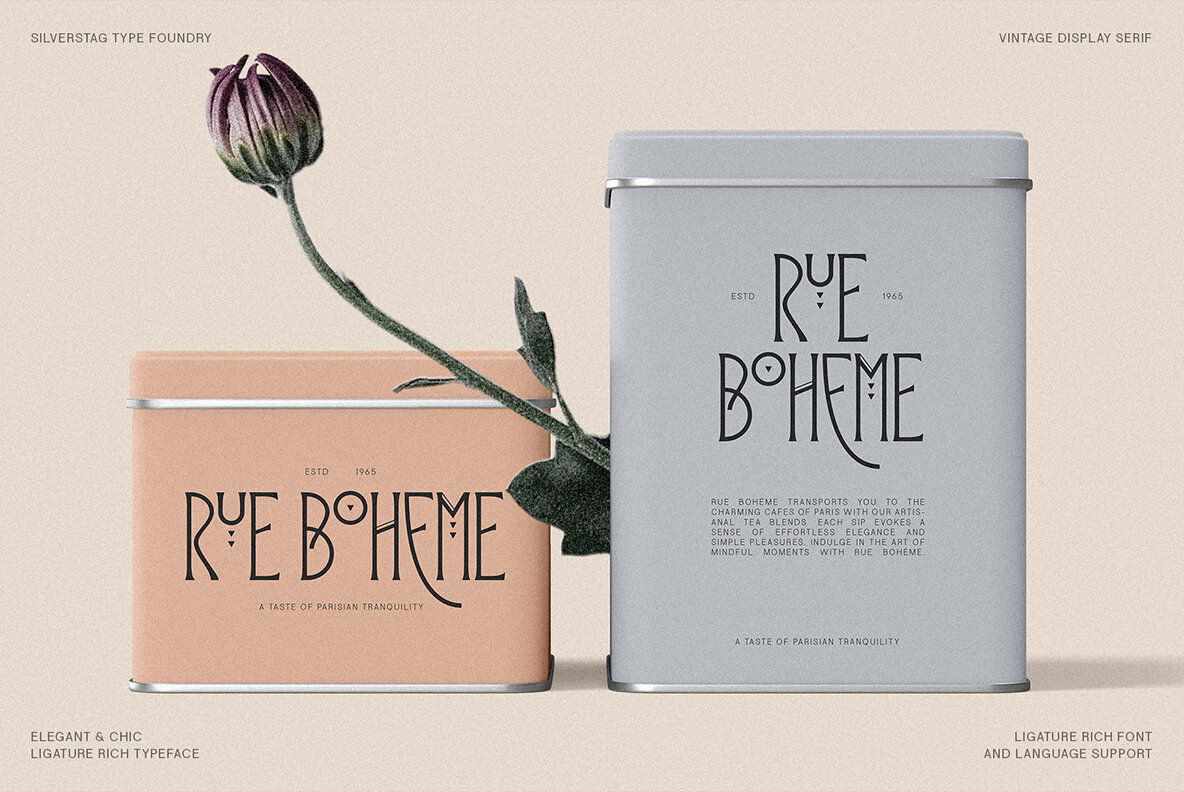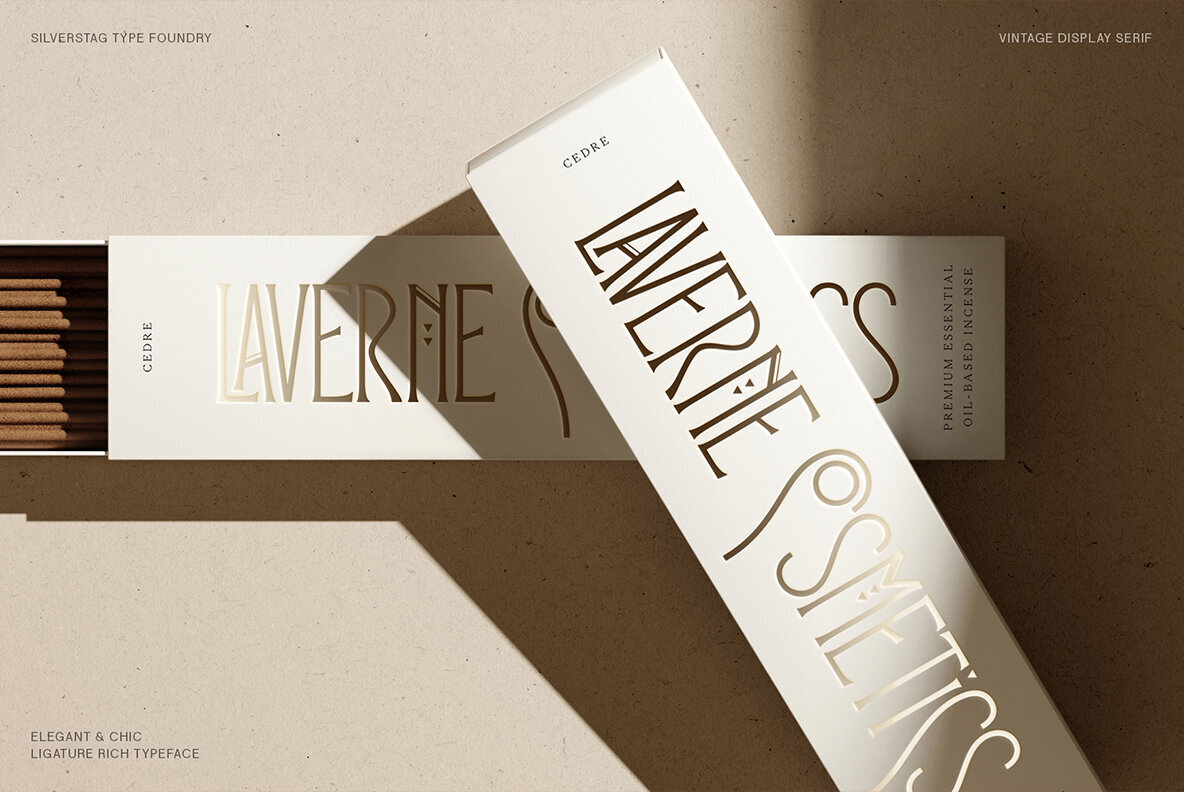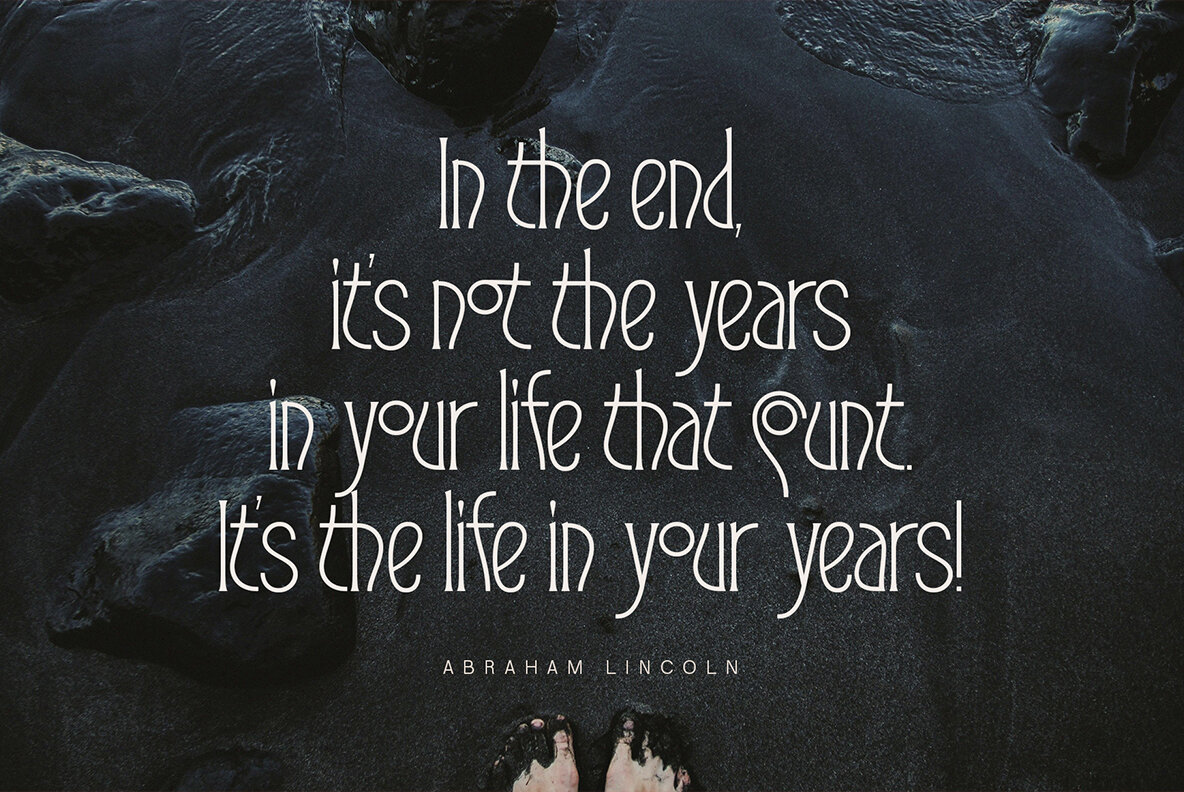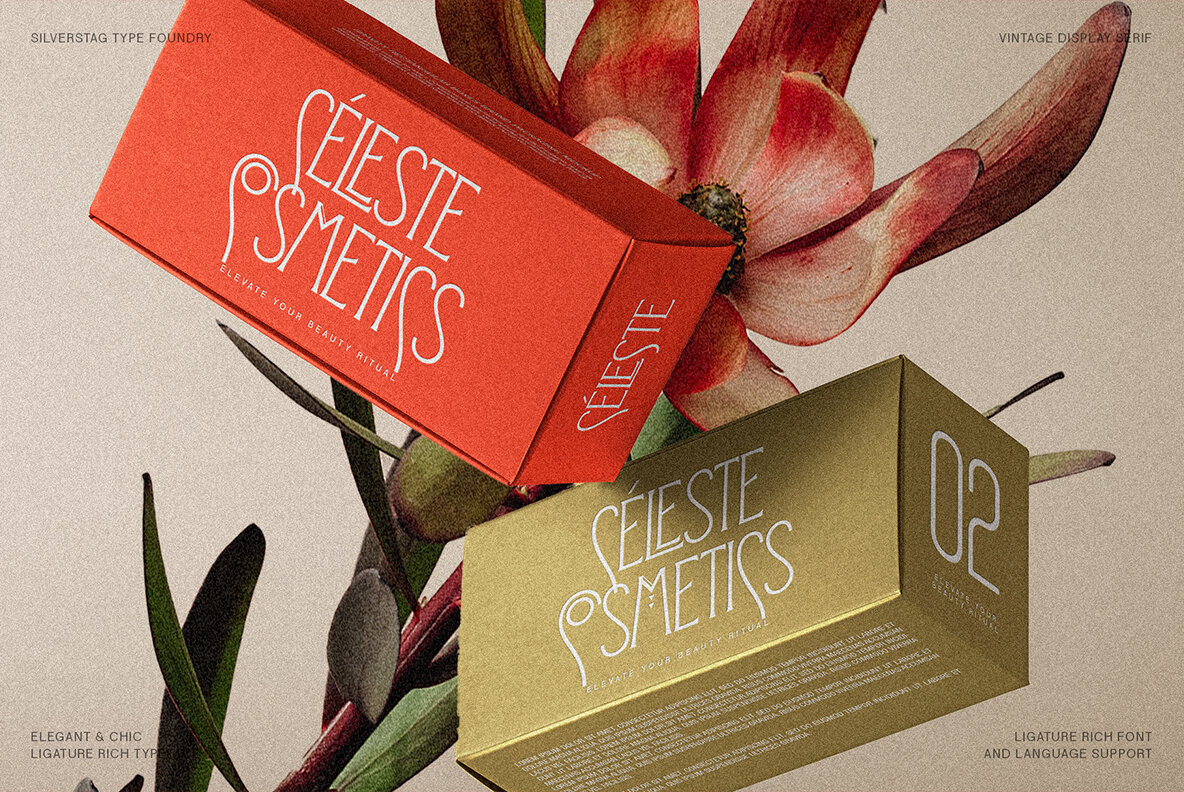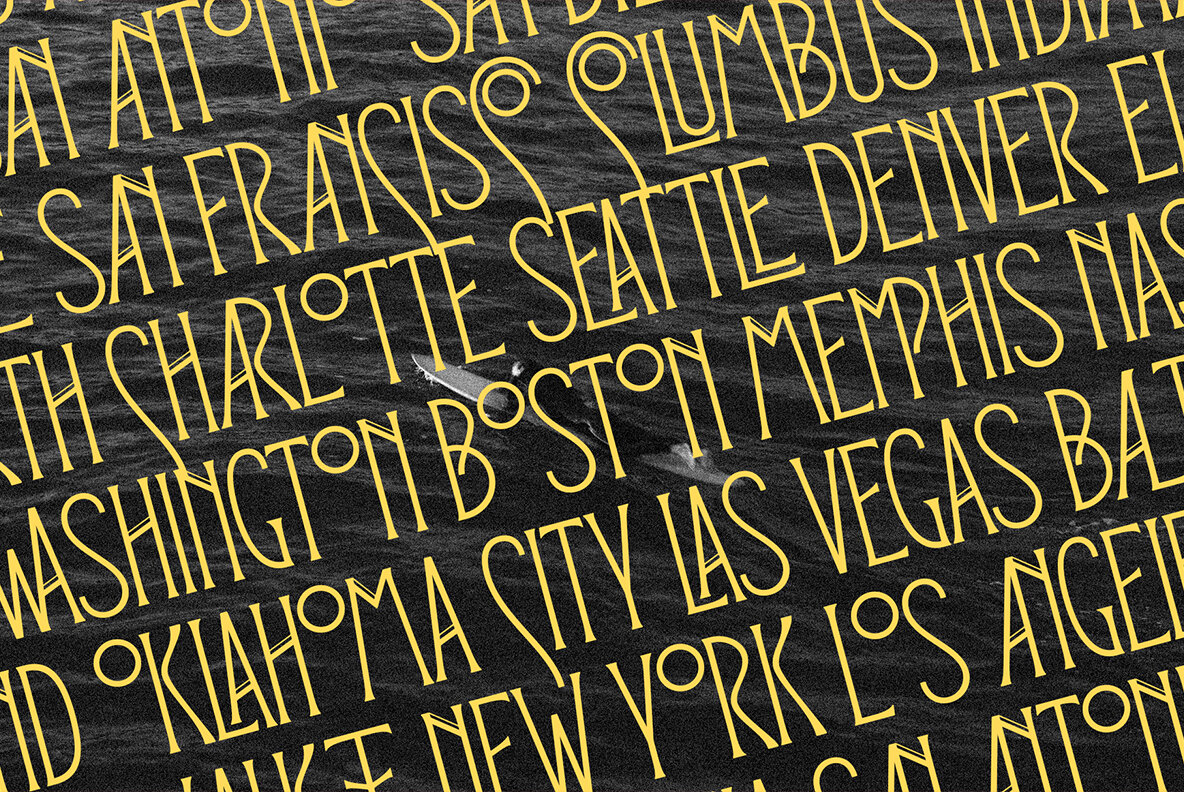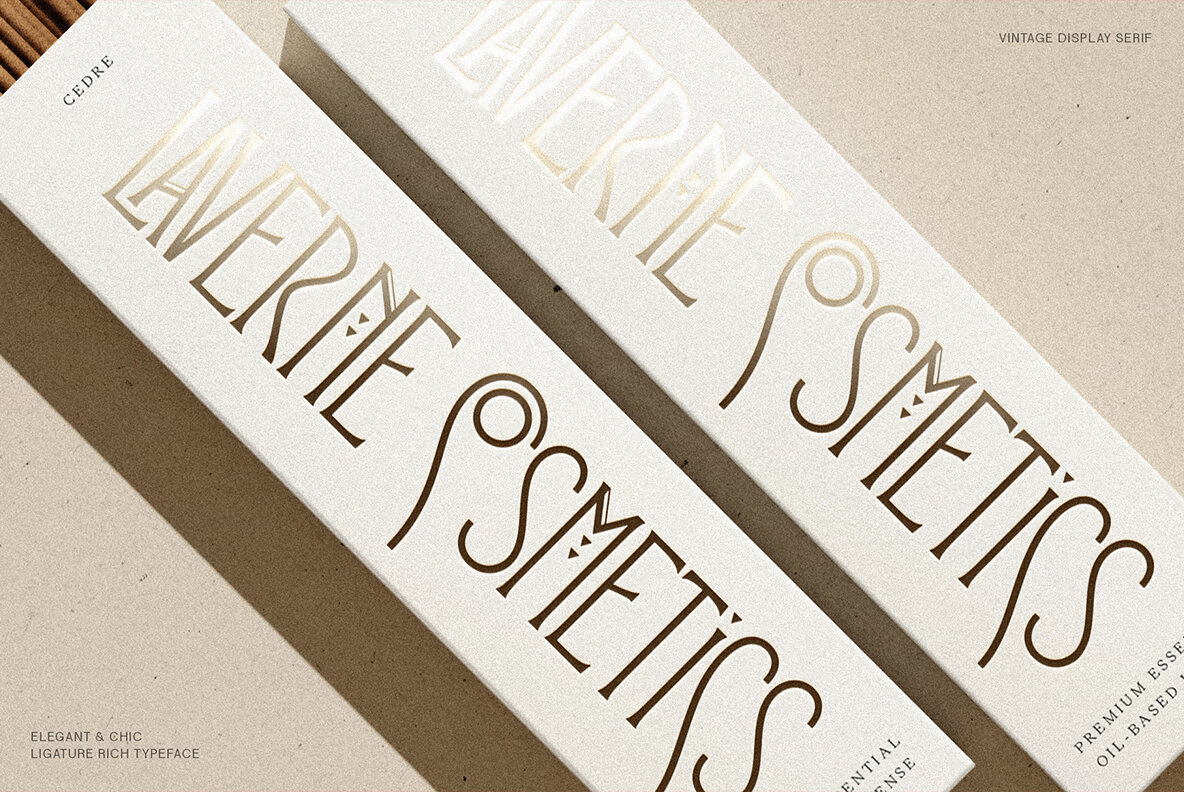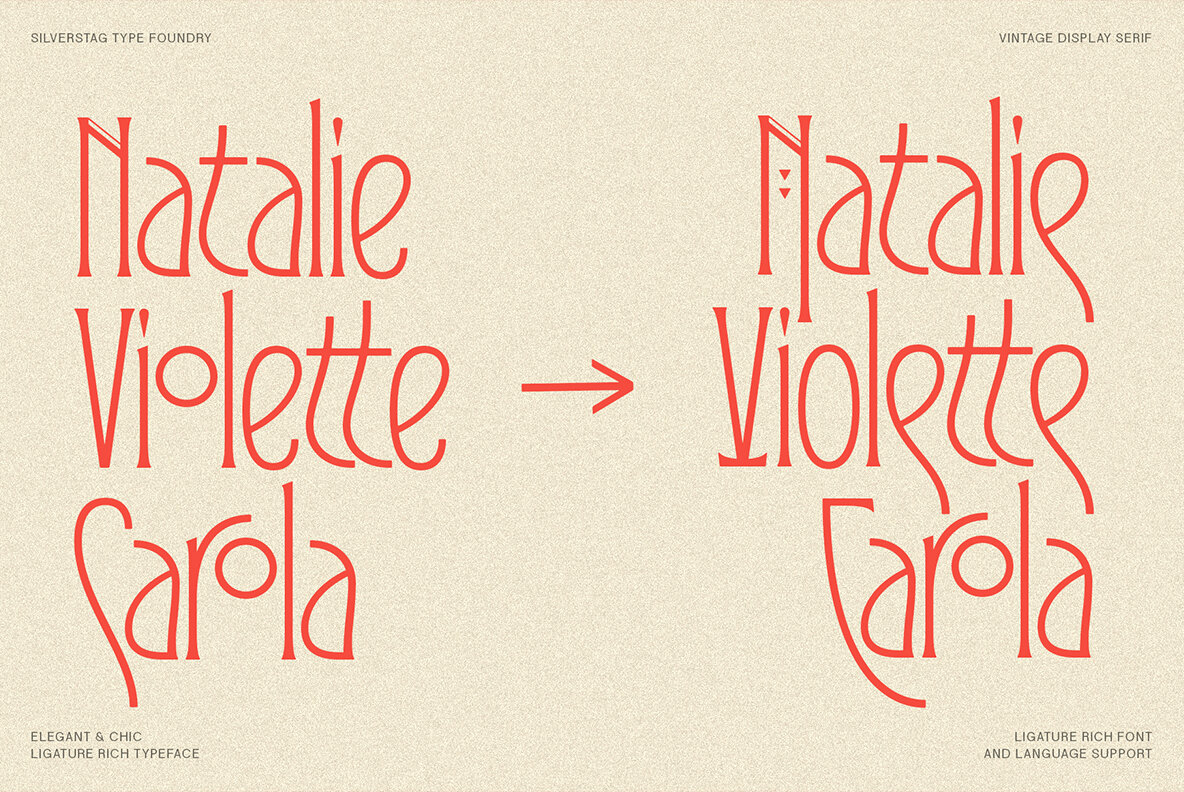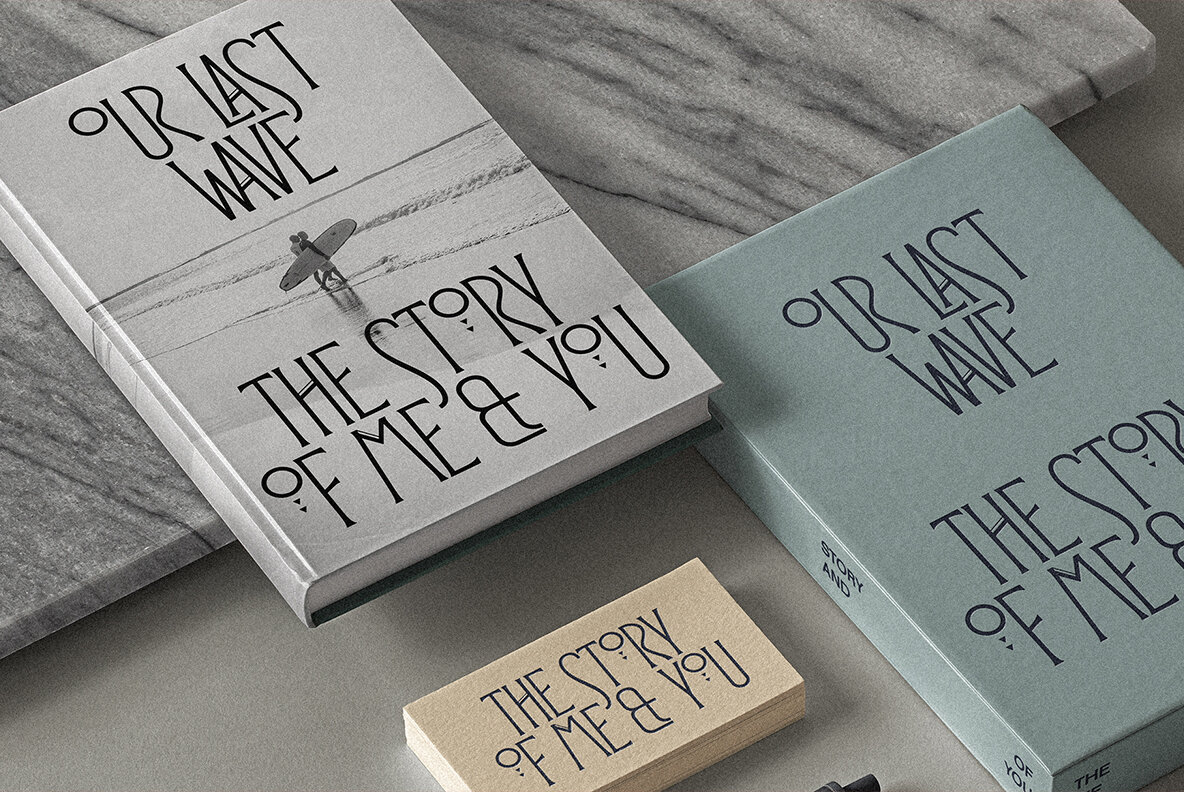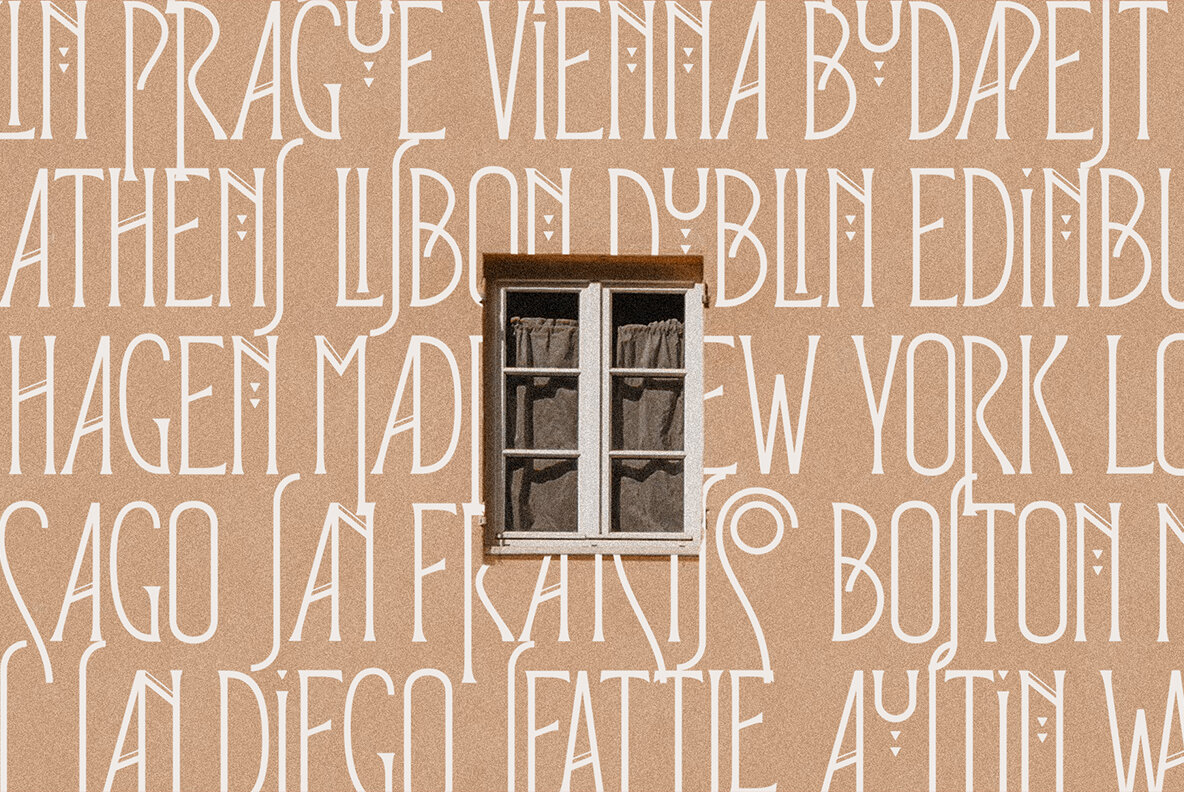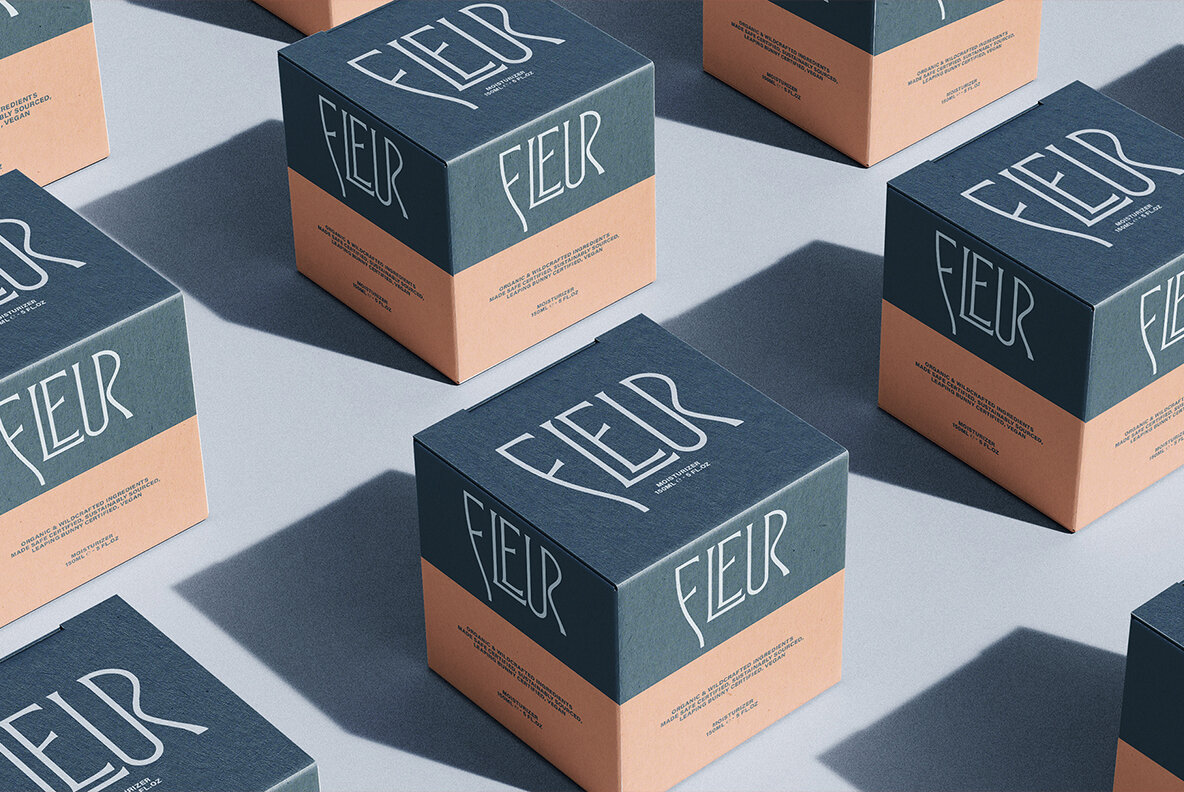
Reina Sofia Font
Reina Sofia Regular
Immerse yourself in the elegance and artistry of Reina Sofía, a vintage-inspired typeface that pays homage to the grandeur of Madrid's iconic Reina Sofía Museum. Drawing inspiration from the museum's rich collection of Art Deco and Art Nouveau masterpieces, this font embodies a bygone era of sophistication and creative expression. With over 150 meticulously crafted ligatures and alternate letters, Reina Sofía invites you to explore a world of typographic possibilities. Each character exudes the opulence and charm of early 20th-century design, while the intricate details and flowing lines capture the essence of artistic movements that shaped an era. Unleash the versatility of Reina Sofía in: Whether you're designing a sophisticated invitation, crafting a vintage-inspired logo, or adding a touch of elegance to your latest project, Reina Sofía offers a versatile and captivating typographic voice. Let the spirit of Madrid's artistic heritage guide your creative journey as you infuse your designs with the timeless allure of Reina Sofía.